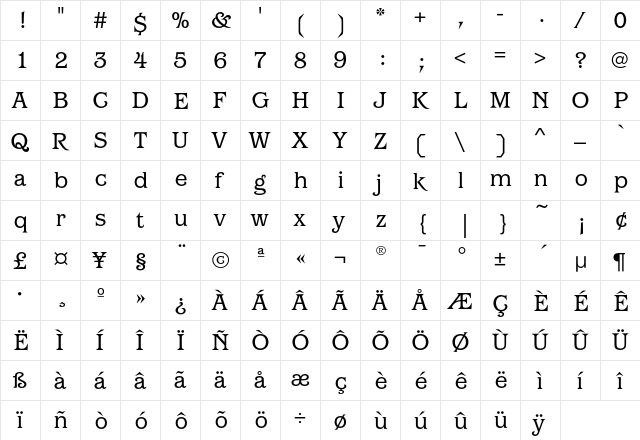
BarcelonaEF-Book Regular
Design Context for BarcelonaEF-Book Typeface
BarcelonaEF-Book is a composed and adaptable typeface that performs quietly and consistently across a wide range of design contexts.